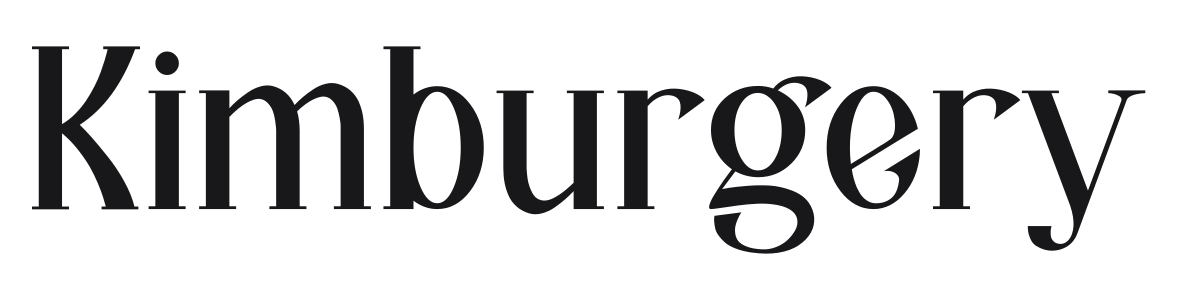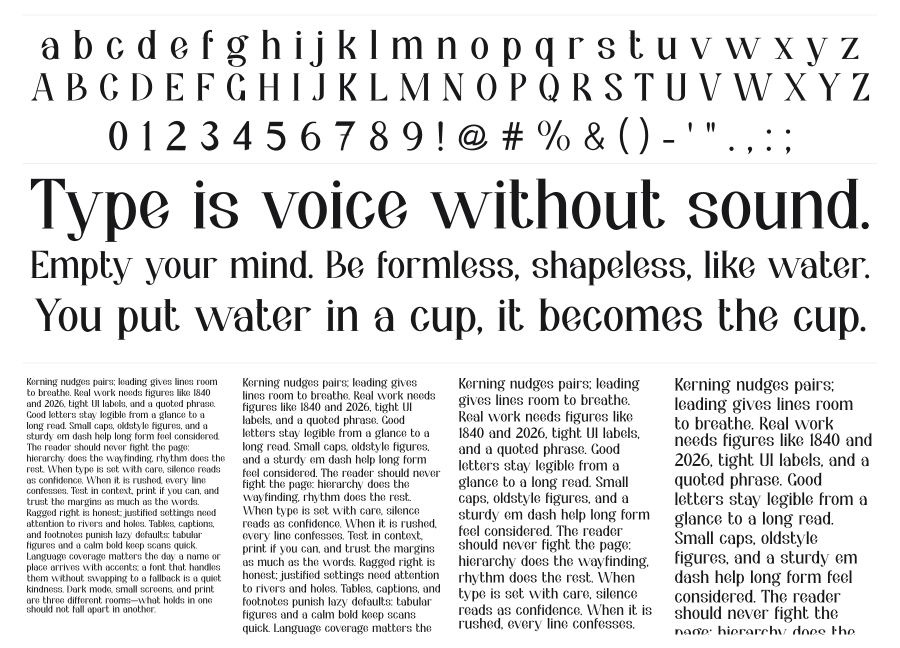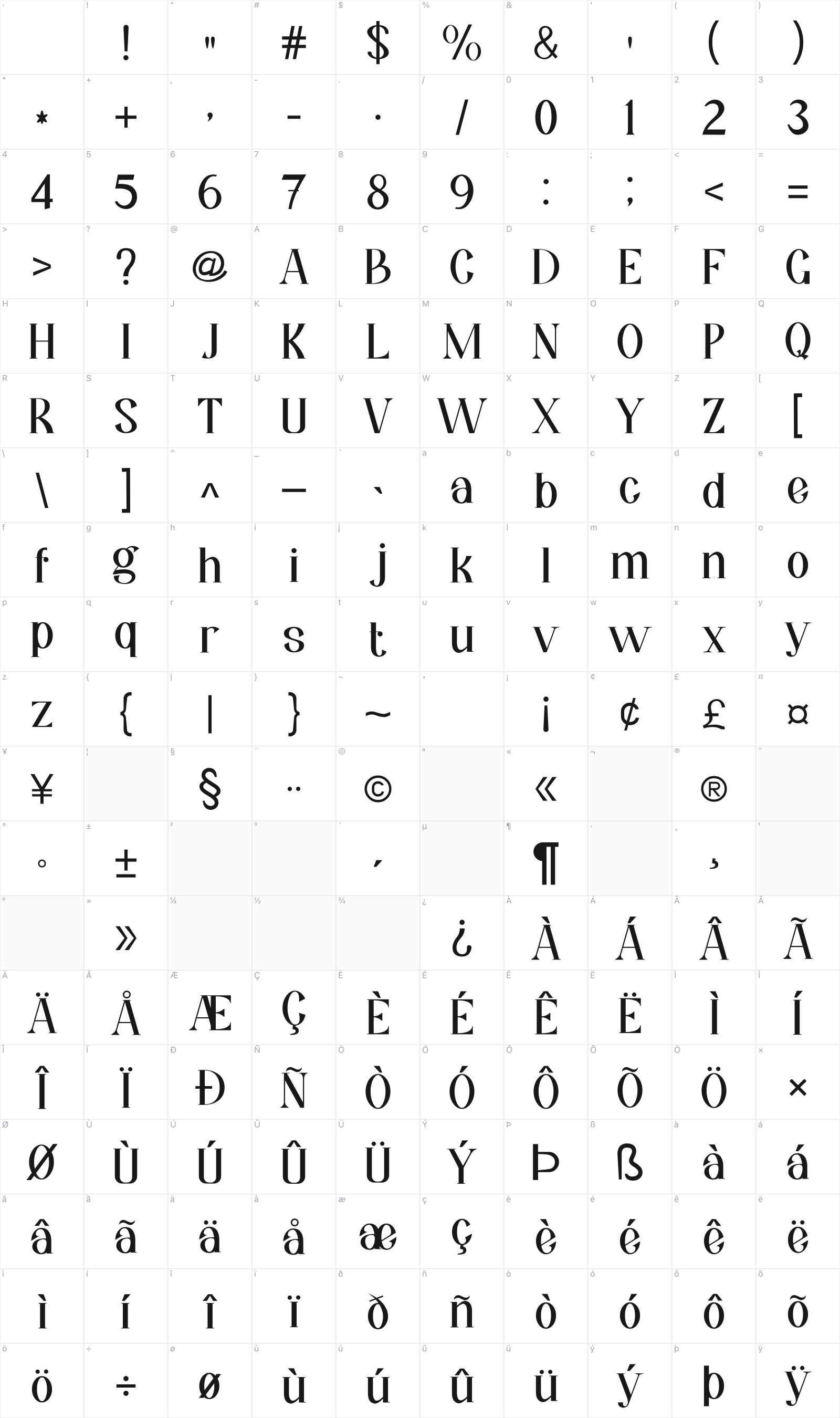
Kimburgery
Kimburgery is a high-contrast display serif with striking thick-to-thin strokes and generous, open proportions. The sharp unbracketed serifs and sweeping curves give it a contemporary Didone character that reads as both modern and luxurious. It thrives at large sizes in editorial layouts, fashion branding, and headline work where drama matters.